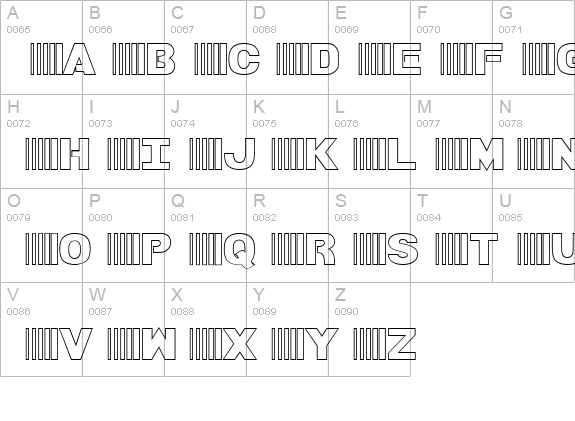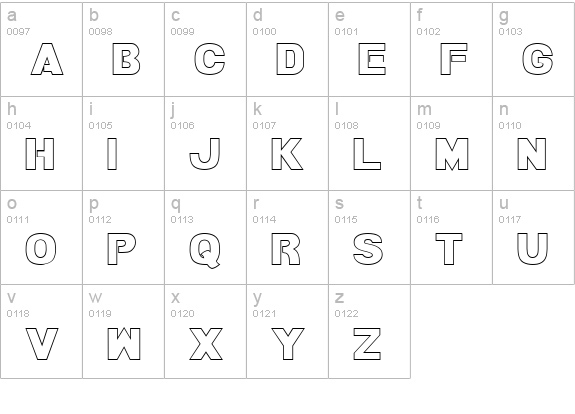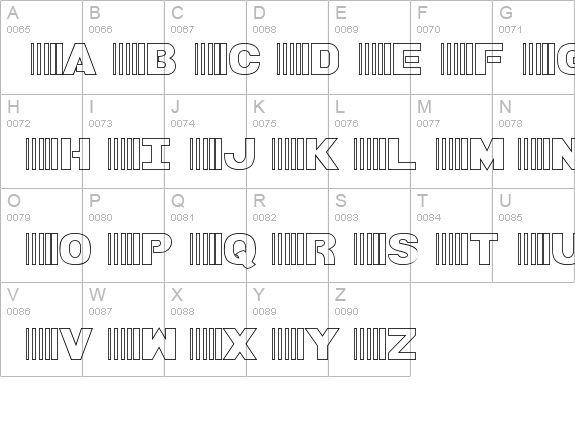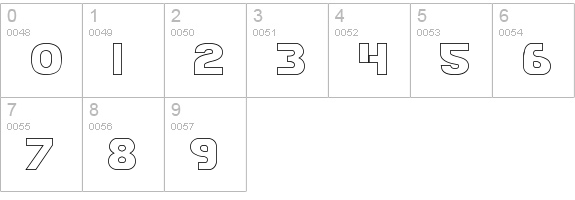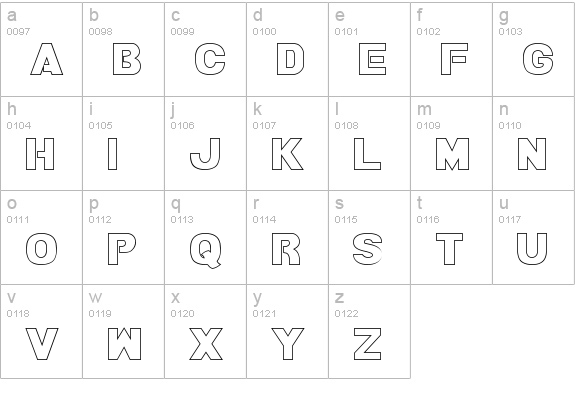
Bamf Outline Font Details
Bamf Outline font is a stylish and modern typeface that brings a touch of sophistication to any design project. Its clean lines and sleek appearance make it perfect for headlines, logos, posters, and more. The outline style adds a contemporary flair that will make your text stand out. Best of all, Bamf Outline font is completely free to download at FontsMarket.com, making it accessible to designers of all levels. Whether you're working on a personal project or a professional assignment, this font is sure to elevate your work with its unique charm and versatility. Don't miss out on this opportunity to enhance your designs with the sleek and modern Bamf Outline font today!